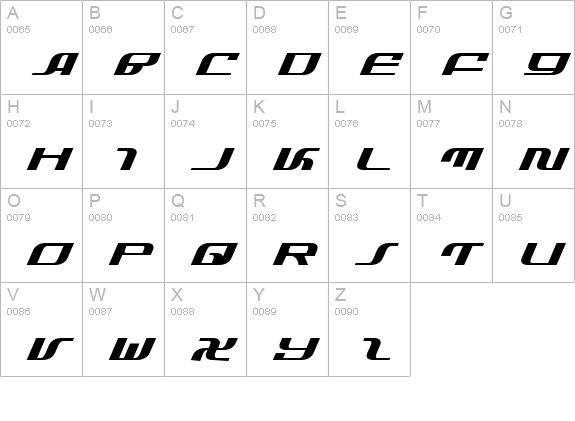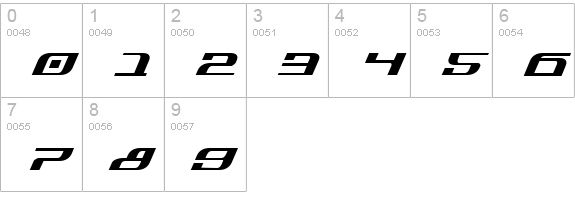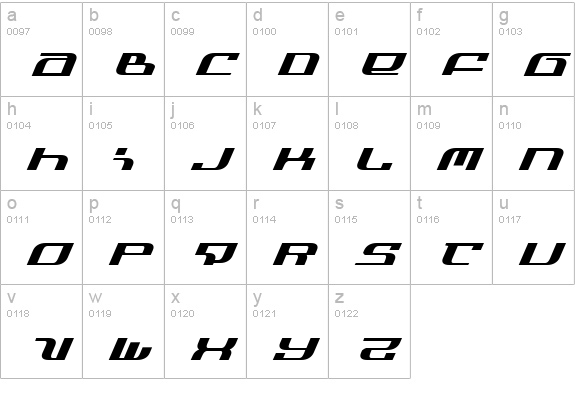
Infinity Formula ExpItalic is a sleek and stylish typeface that exudes elegance and sophistication. With its italicized design, this font brings a touch of modernity to any project, making it perfect for branding, headlines, and creative designs. The Infinity Formula ExpItalic font is versatile and can be used for a variety of purposes, adding a touch of flair to any text. The best part is that this font is available for free download at FontsMarket.com. So whether you're a designer looking to add a new font to your collection or a content creator in need of a fresh look for your projects, Infinity Formula ExpItalic is the perfect choice. Don't miss out on this opportunity to enhance your designs with this stunning font - download it for free today!